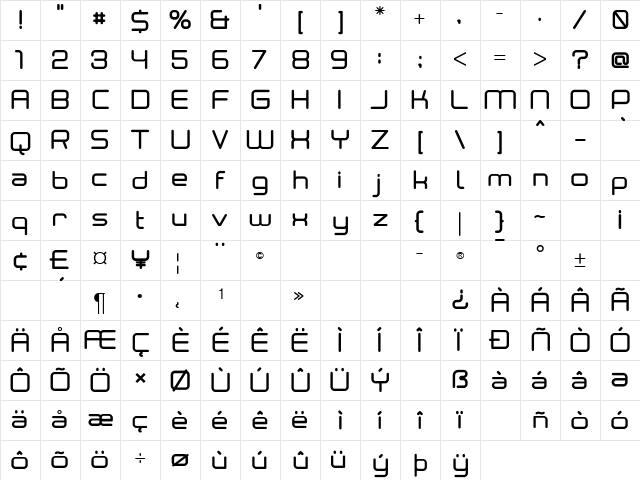
Neogrey Med Regular Free Font
Neogrey Med Regular
Foundry: neogrey creative
Designer: Ivan Filipov
Complete Neogrey Med Regular glyph index. Displaying only characters natively supported by Neogrey Med Regular font.
Design Context for Neogrey Med
Neogrey Med is a composed and adaptable typeface that performs quietly and consistently across a wide range of design contexts.